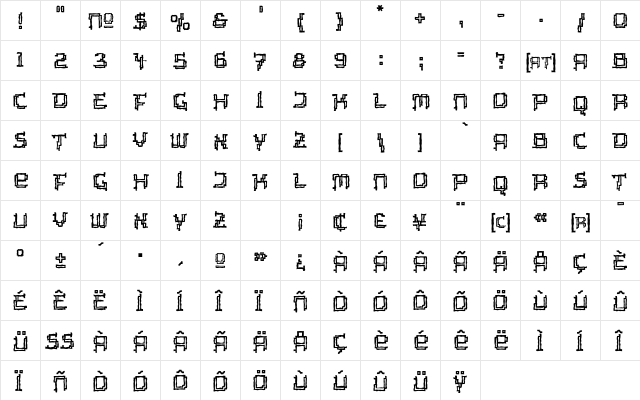
Tipi Archaic Inline Regular
| Foundry | Schmalfett |
| Designer | Thomas Mettendorf |
Design Context for Tipi Archaic Inline Typeface
Tipi Archaic Inline brings ornamental detail and strong personality to headlines and identities, where visual impact matters more than quiet functionality.
Font Pairing: Pair with a clean neutral sans-serif for body copy to let Tipi Archaic Inline's character lead without overwhelming the composition.
Pro Tip: Treat Tipi Archaic Inline as the centrepiece of your typographic hierarchy. One strong heading set in a decorative face can carry an entire layout.